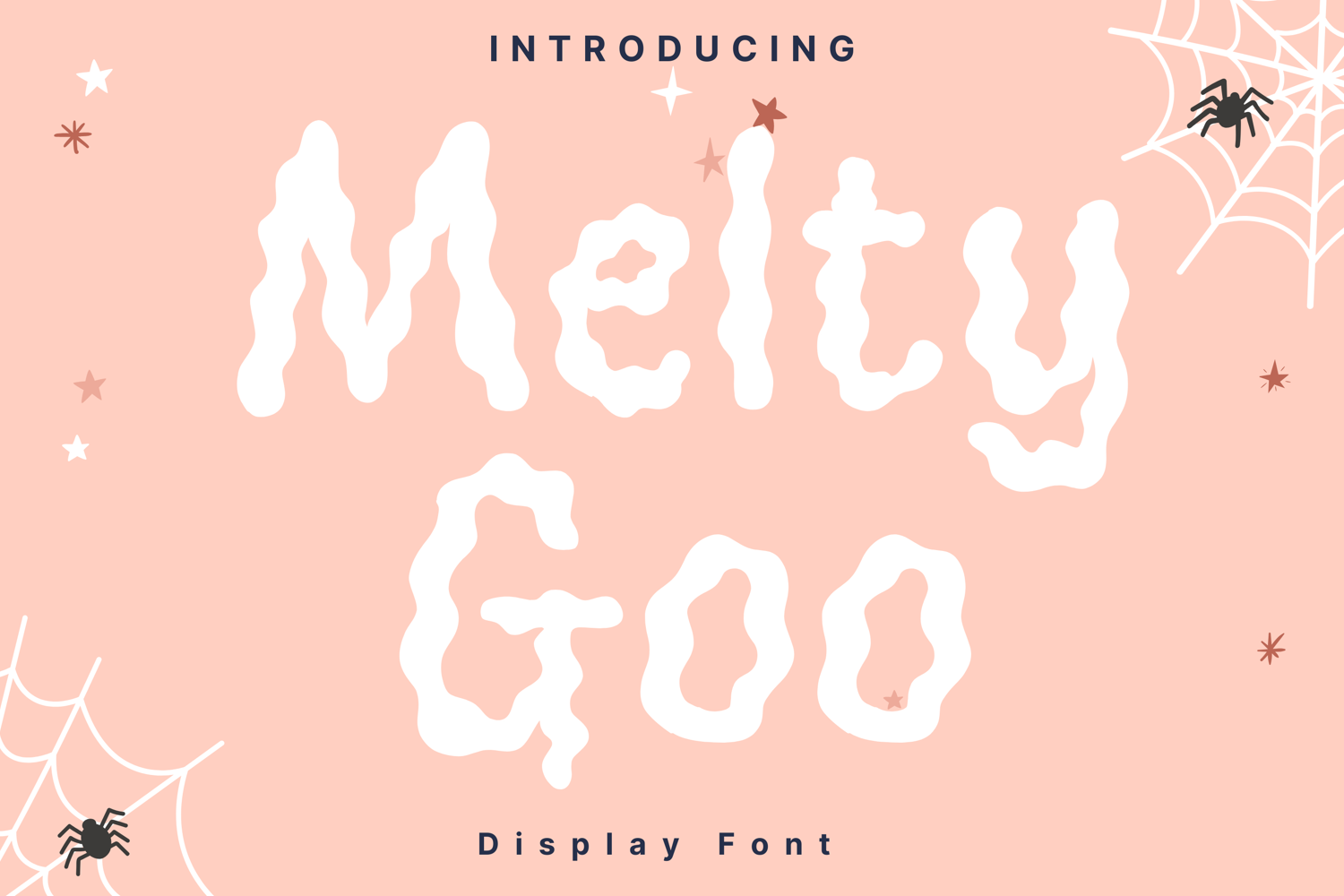
Melty Goo Style
MeltyGoo
Melty Goo is a playful, drippy-style display font that looks like it’s melting or made of slime. With its irregular, gooey shapes, it creates a fun and spooky vibe, making it perfect for Halloween-themed projects, horror posters, creepy invitations, or quirky branding. Its organic, fluid style brings a unique character that stands out in titles and designs where you want a slimy, eerie, or playful aesthetic.